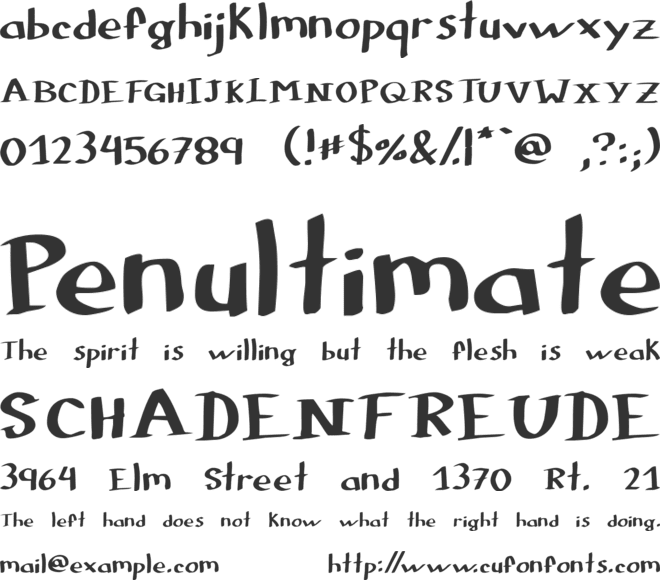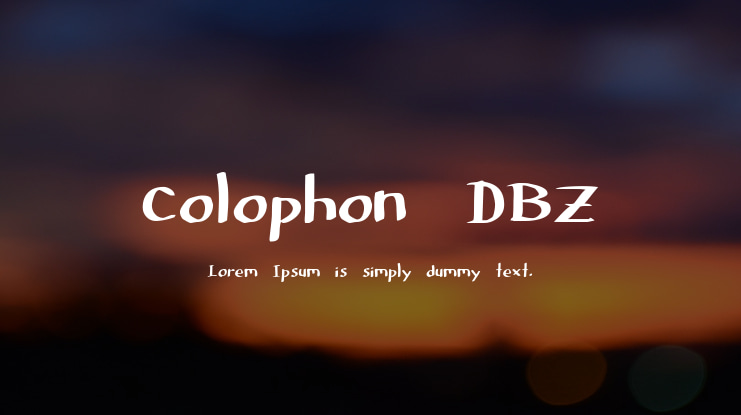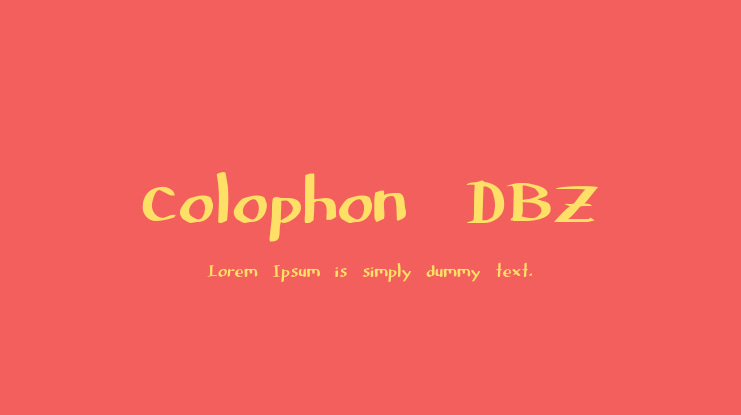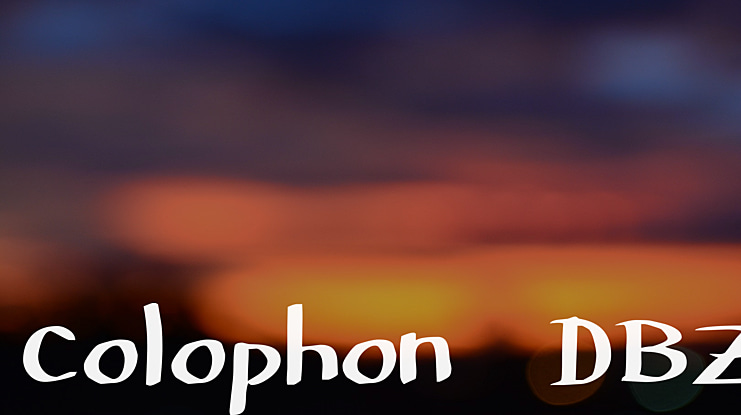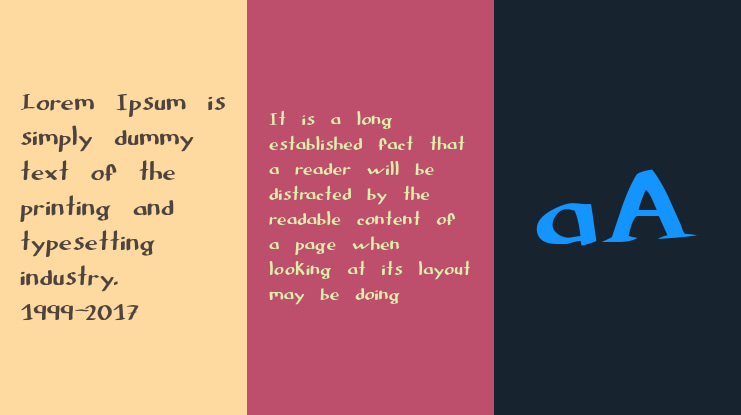
(All keyboard characters, some Foreign and Special) is another scanned font from my Christmas '98 withdrawl. The capital letters have serifs, the lowercase don't -- I think this font looks good in all lowercase. Very smooth, almost cartoony, and suitable for both headlines and body text.